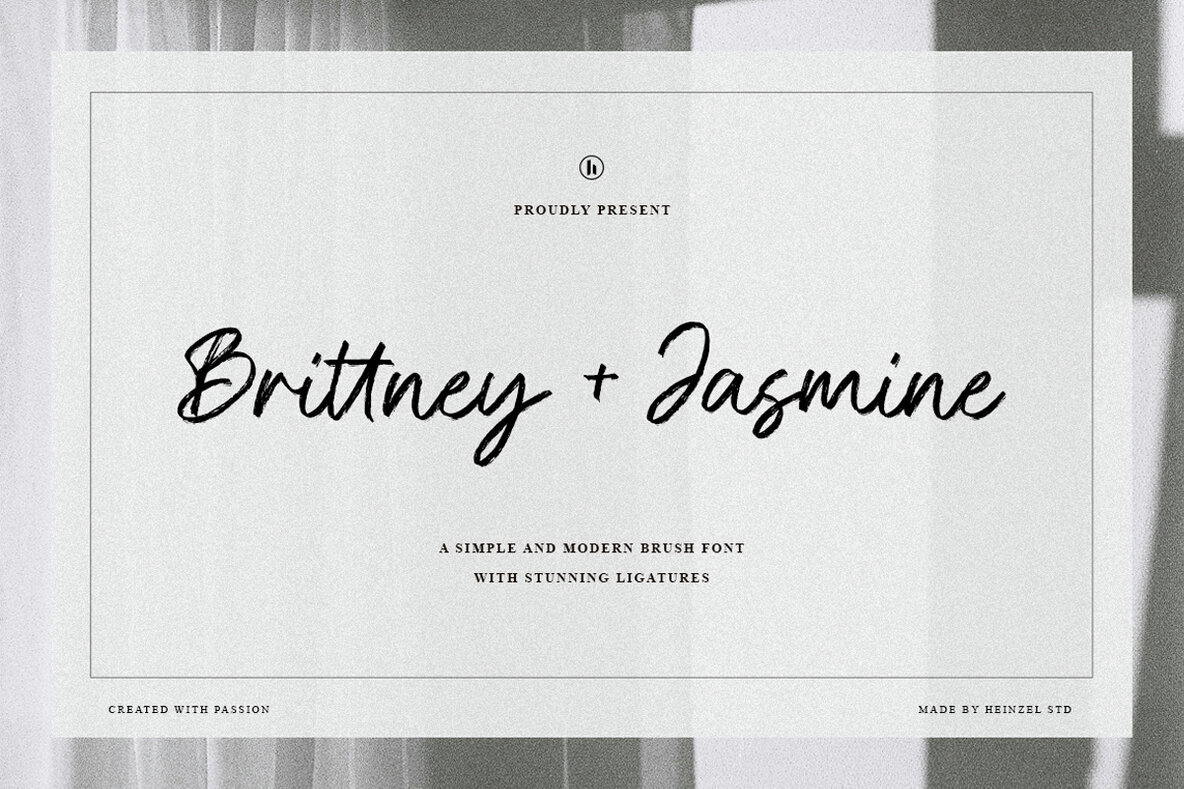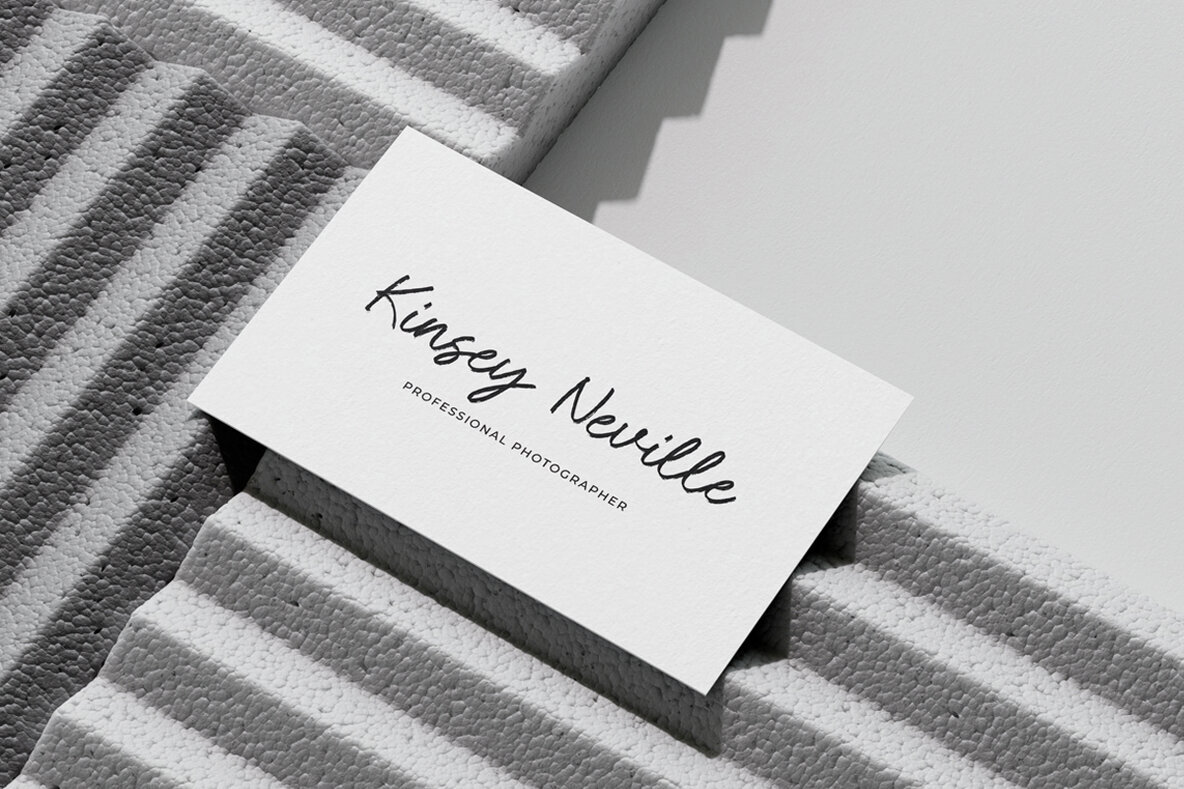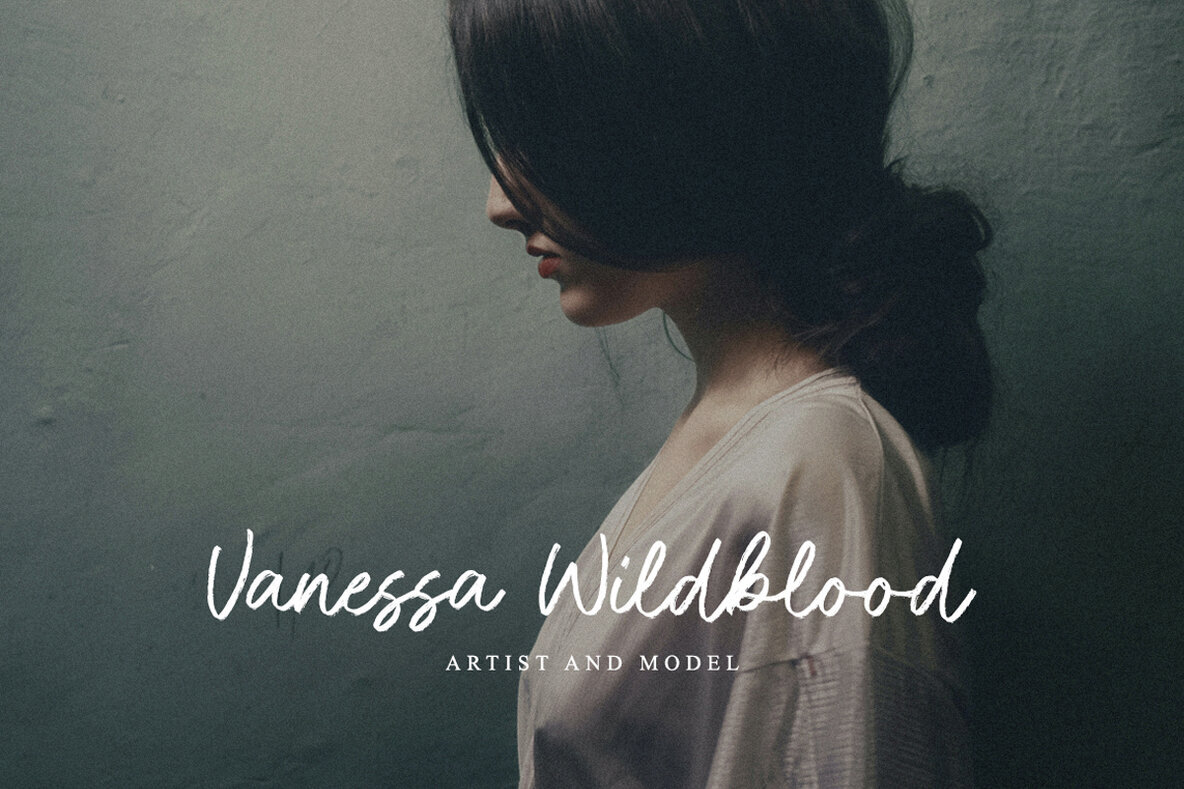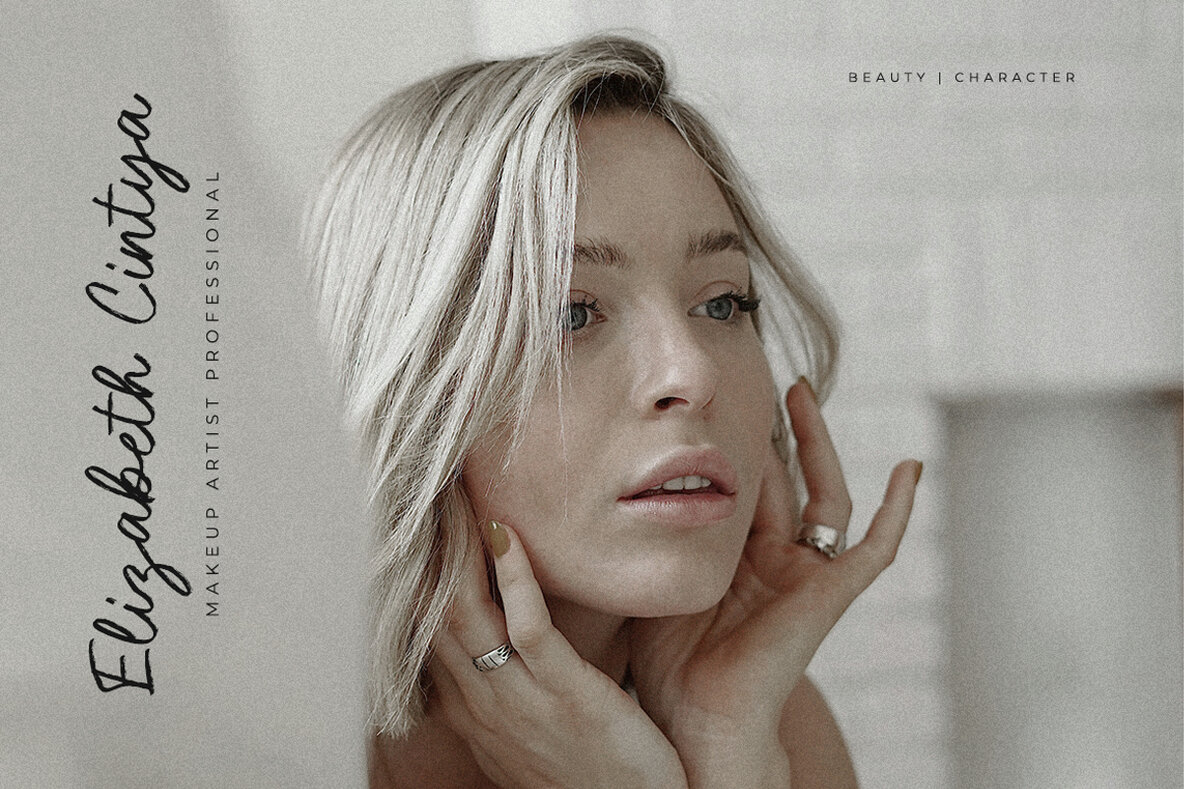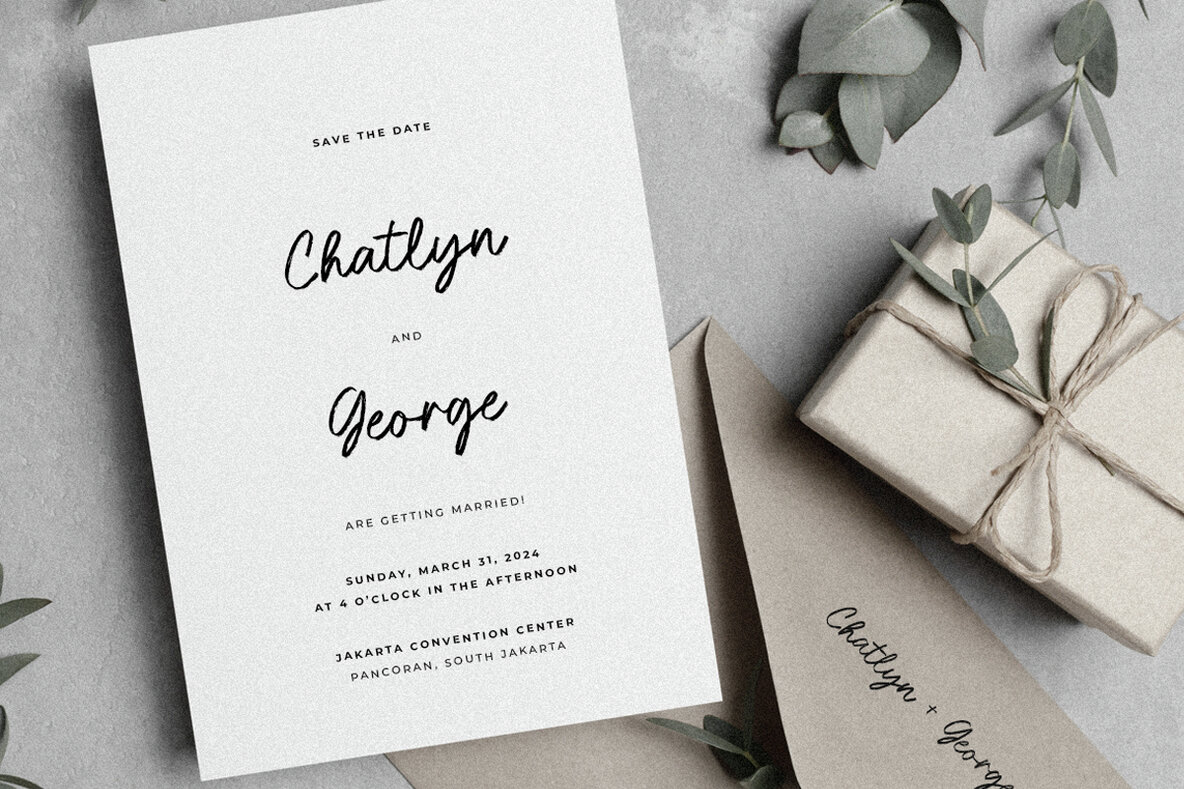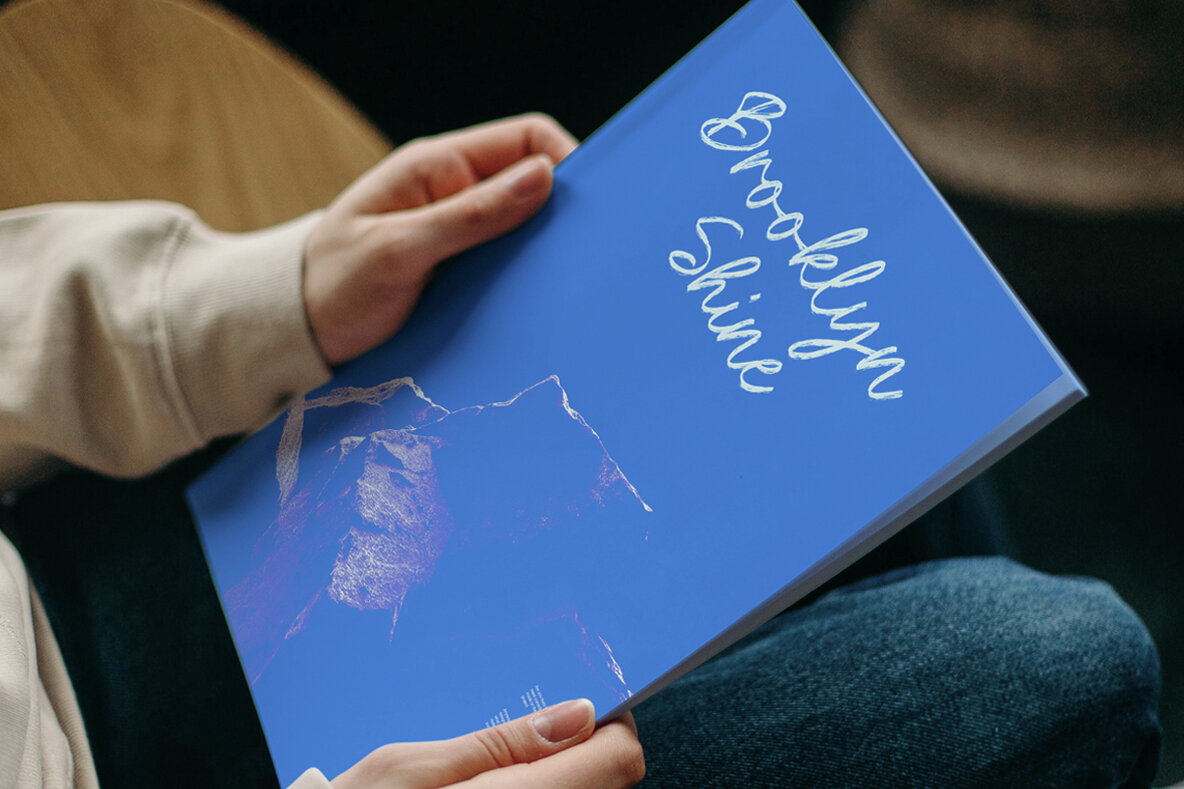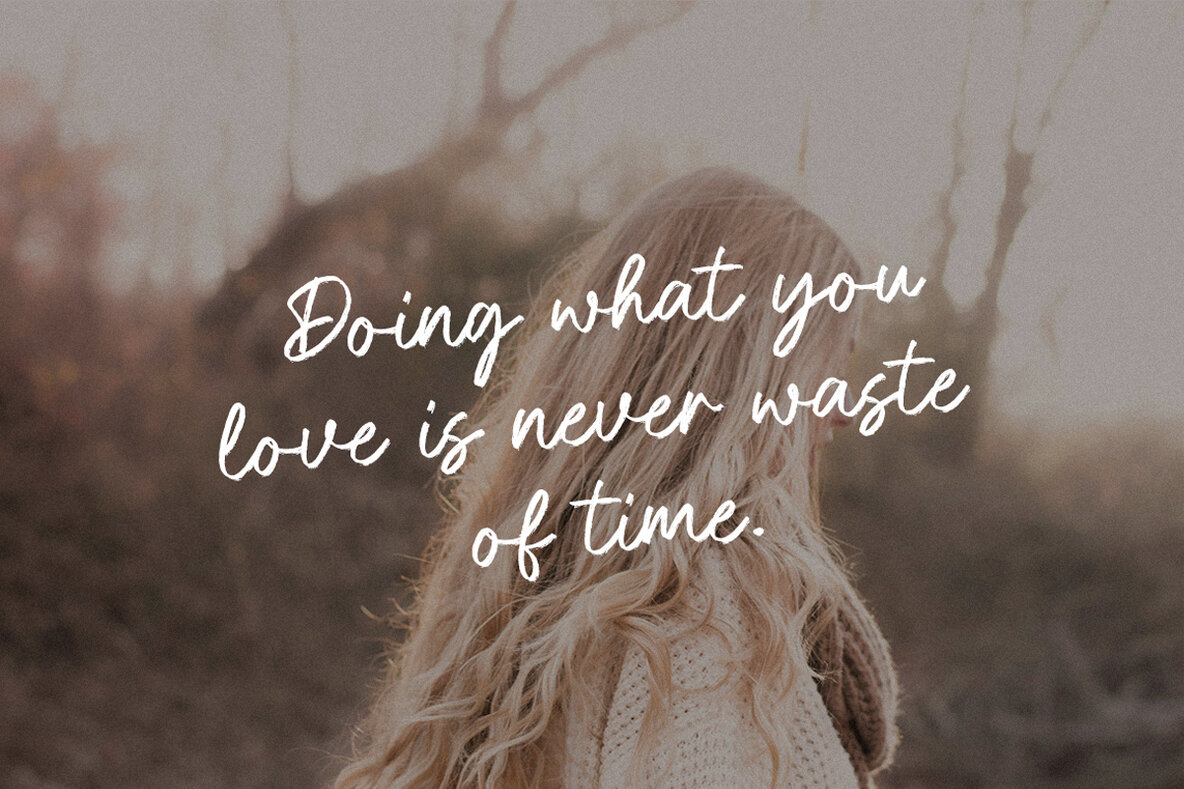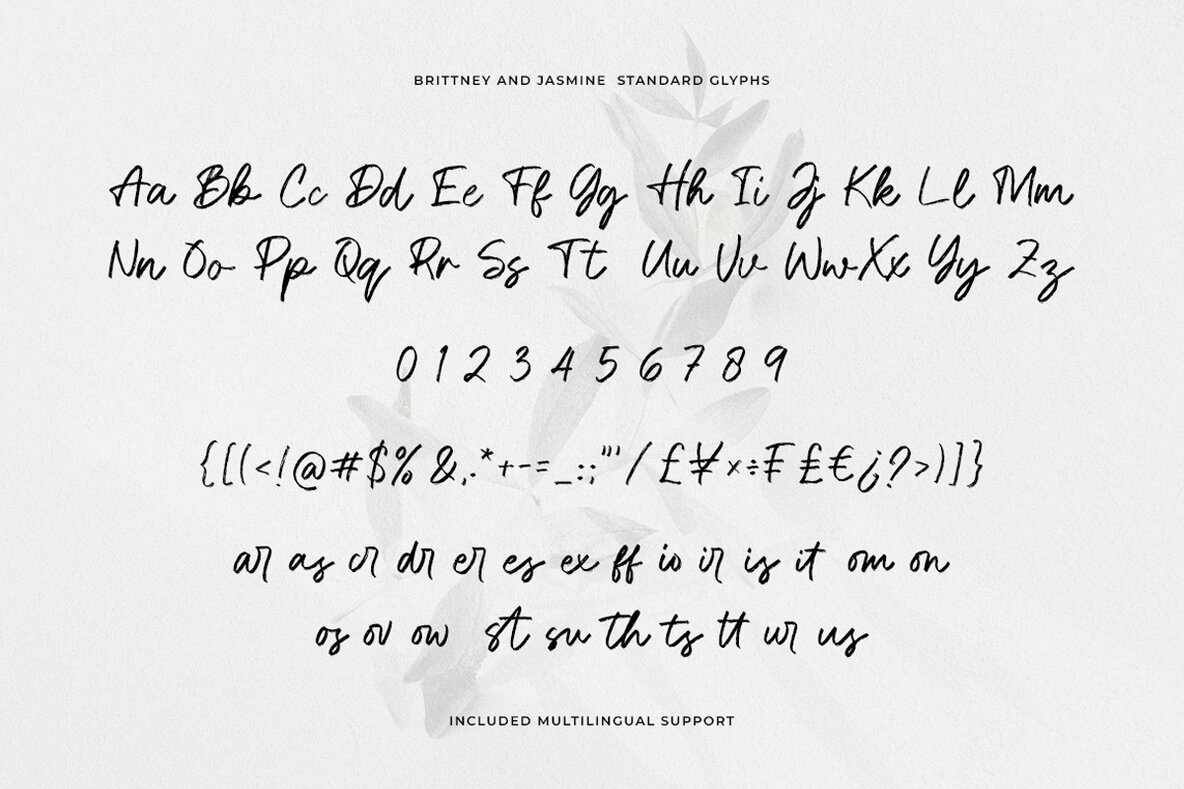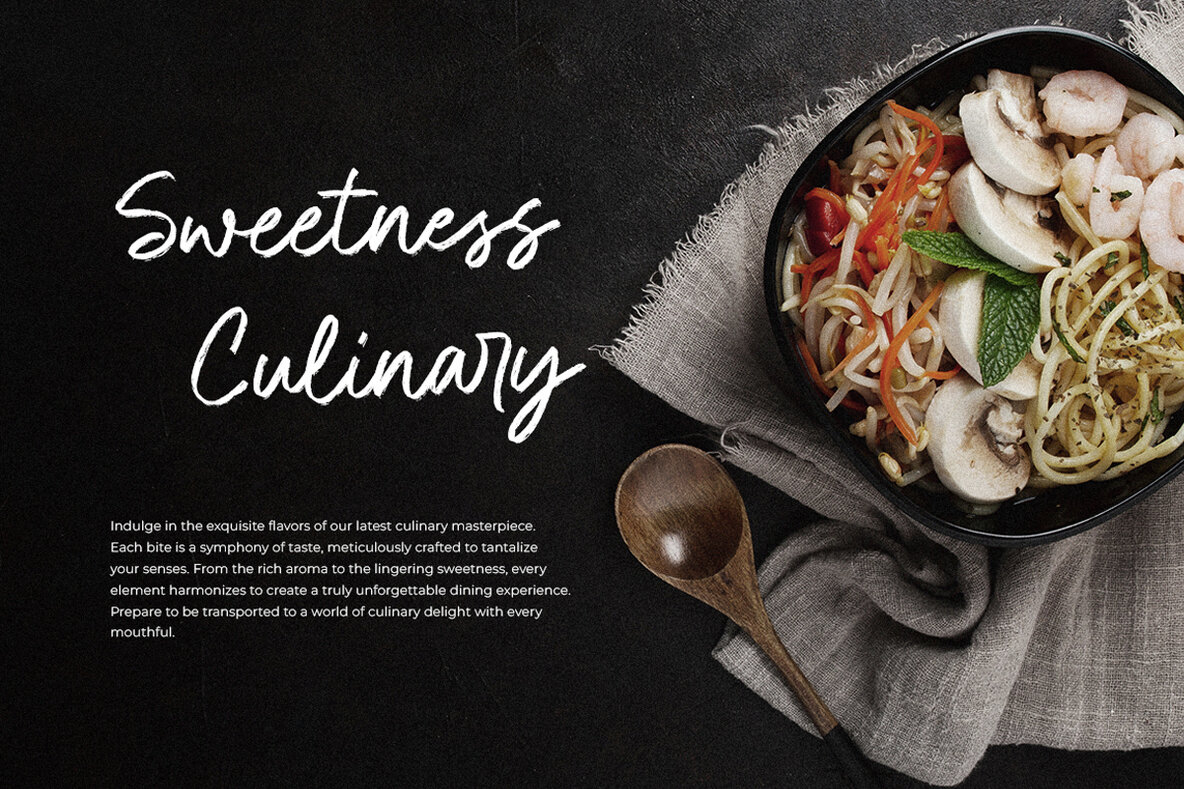
Brittney and Jasmine Font
Brittney and Jasmine Regular
The allure of hand-lettering meets bold strokes in Brittney and Jasmine, a modern brush script font that exudes elegance and style. Ideal for branding, logos, and social media graphics, this font offers a vibrant contemporary appeal. Its dynamic brush texture and fluid letterforms inject personality into every project, ensuring your designs resonate with an effortless charm.Brittney and Jasmine: Modern Brush Script